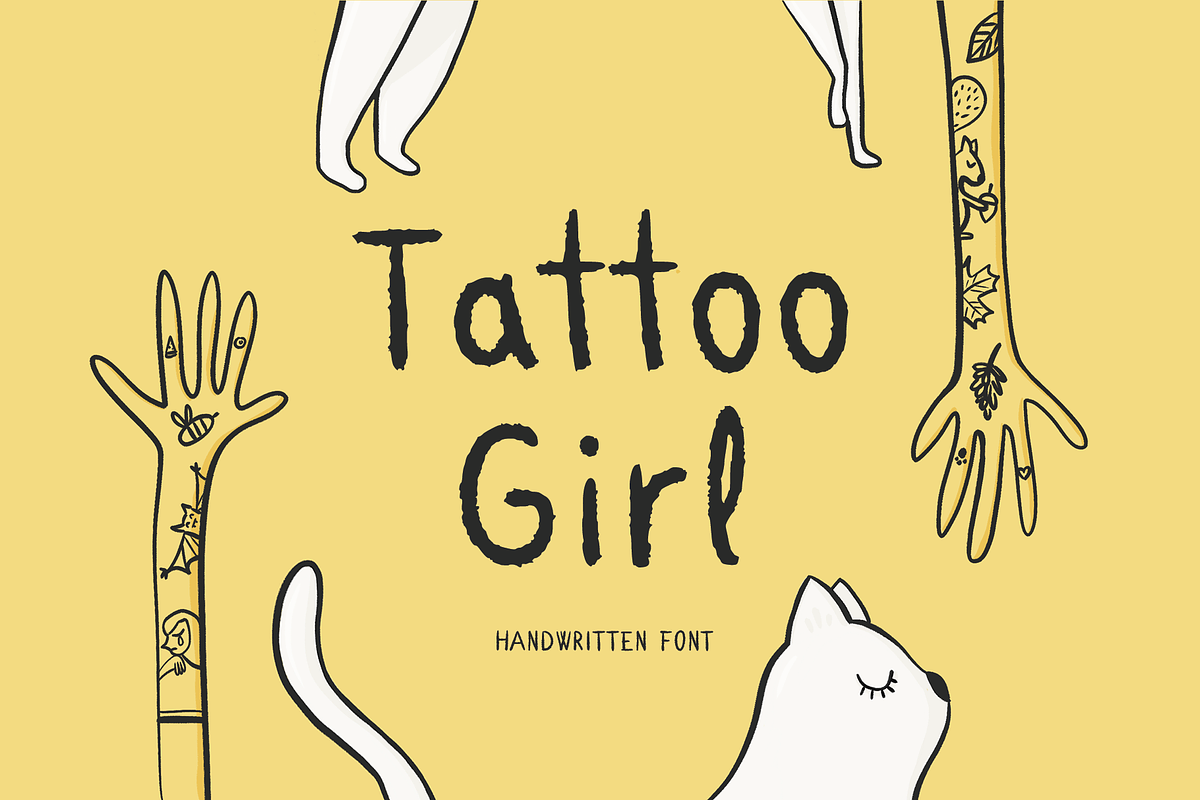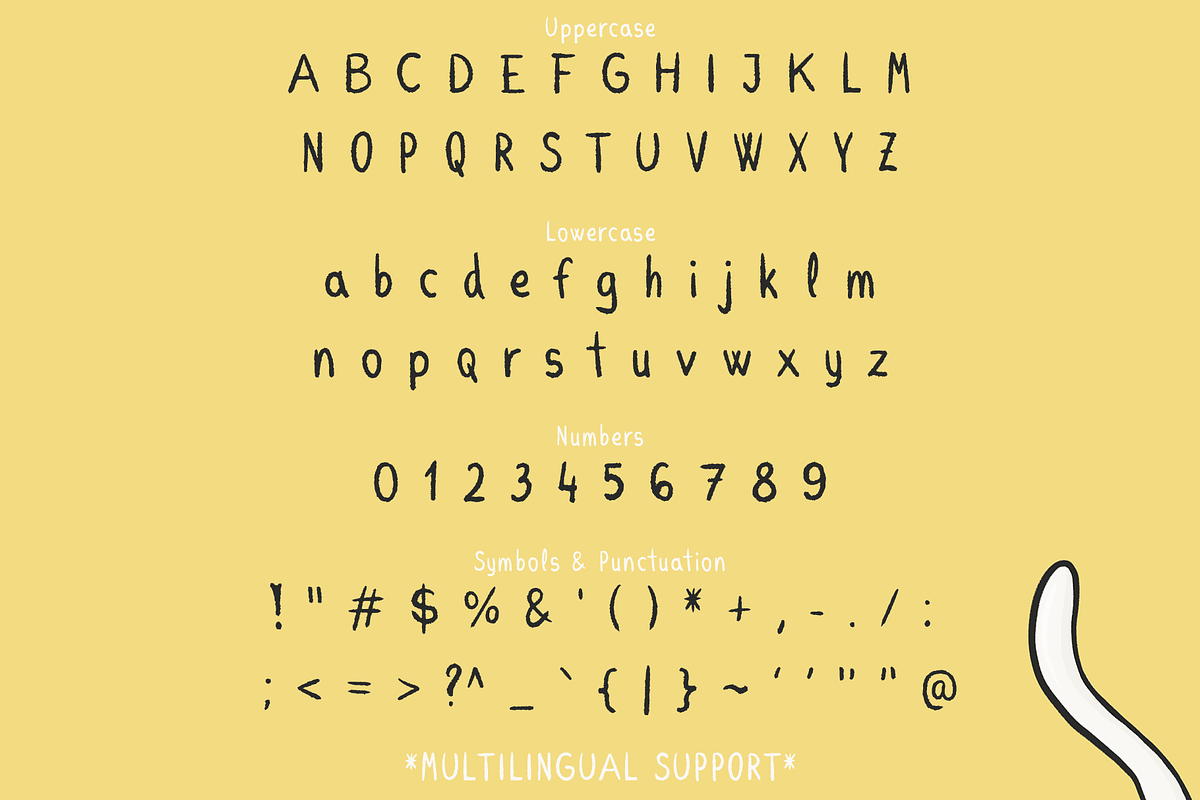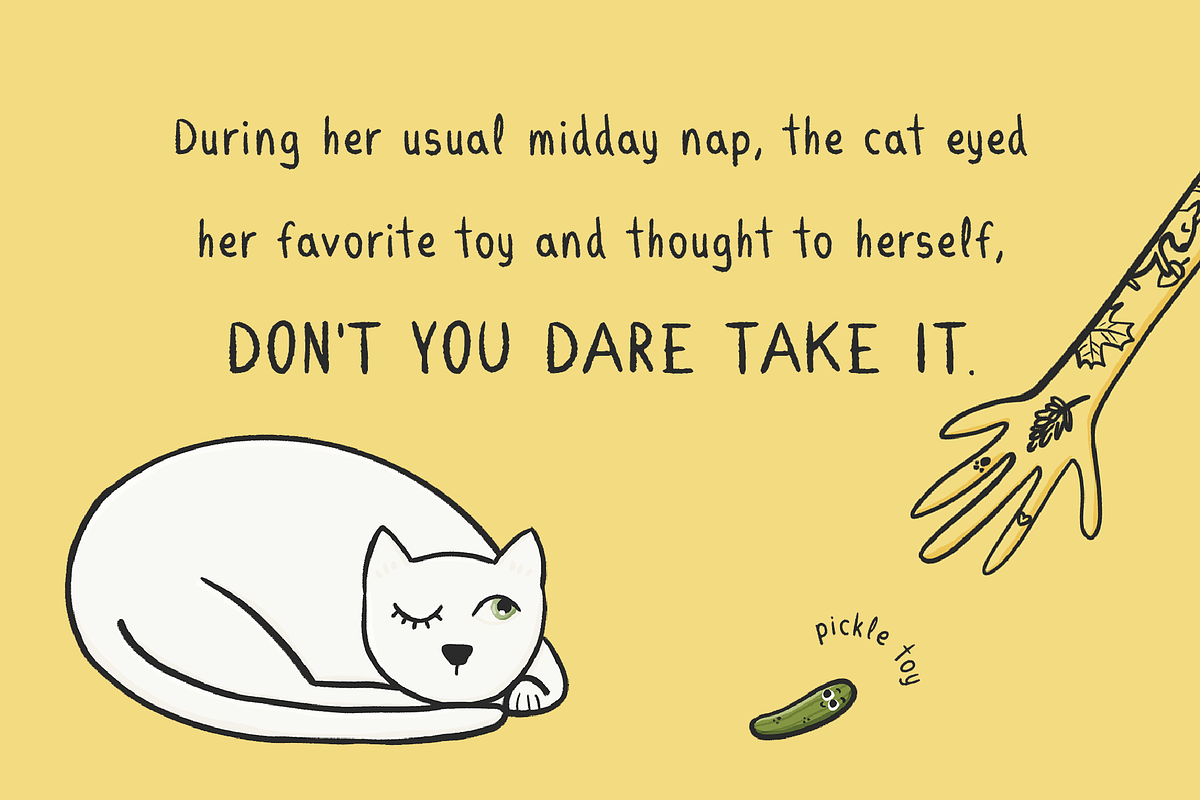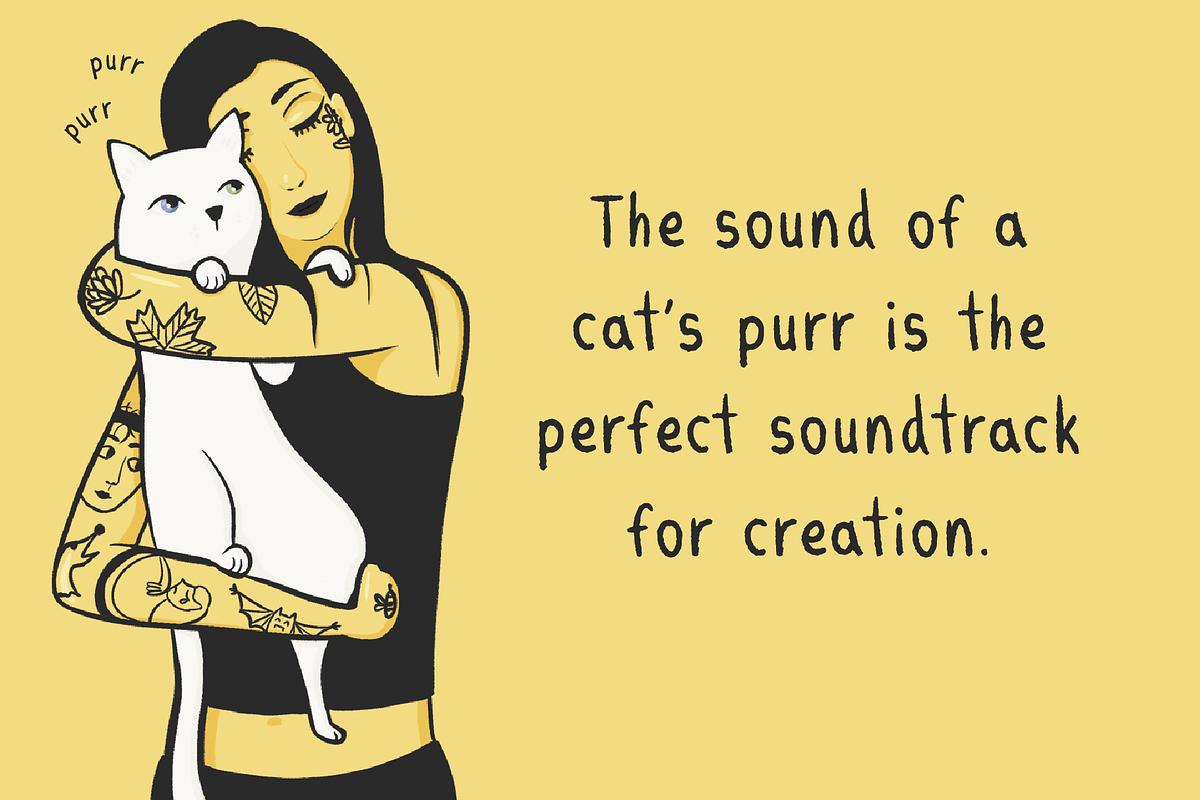
Tattoo Girl
Tattoo Girl is a dynamic, hand-crafted font that channels a free-spirited, imperfect energy. Created with messy, fluid lines, this font captures the essence of spontaneous, hand-drawn lettering. Each letter is full of character, making this font perfect for projects that need a raw, unique touch.
Whether you're designing for branding, posters, merchandise, or anything that calls for an edgy, handwritten look, Tattoo Girl brings energy and authenticity to the table. It’s not perfect, but that’s exactly what makes it stand out.
This font fully supports a wide range of languages, including English, French, Spanish, Portuguese, German, Italian, Swedish, Norwegian, Danish, Finnish, Icelandic, Polish, Czech, Slovak, Hungarian, Turkish, Estonian, Latvian, Lithuanian, Romanian, Albanian, Croatian, Bosnian, Slovenian, Serbian (Latin script), Irish, and Swahili. Test the font above to ensure it suits your project.